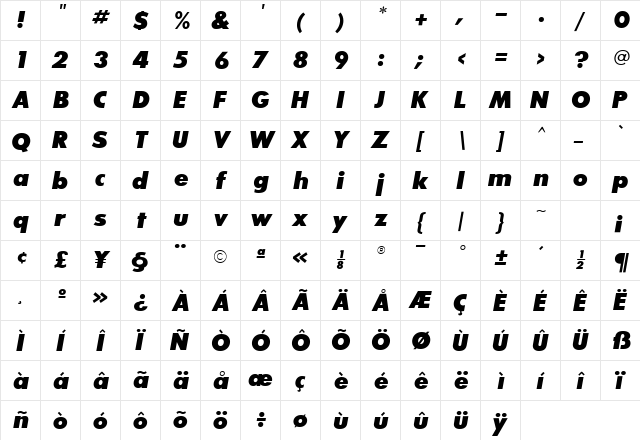
Bougan Black SSi Extra Bold Italic Font Preview
Rendered live in your browserBougan Black SSi Extra Bold Italic Font Details
| Style | Extra Bold Italic |
Design Context for Bougan Black SSi Typeface
Bougan Black SSi takes a measured approach to typography — its balanced proportions and neutral character make it a reliable workhorse for both digital and print work. The dynamic lean of this cut emphasises speed and emphasis in any layout. Its bold stroke weight gives it real presence on the page.